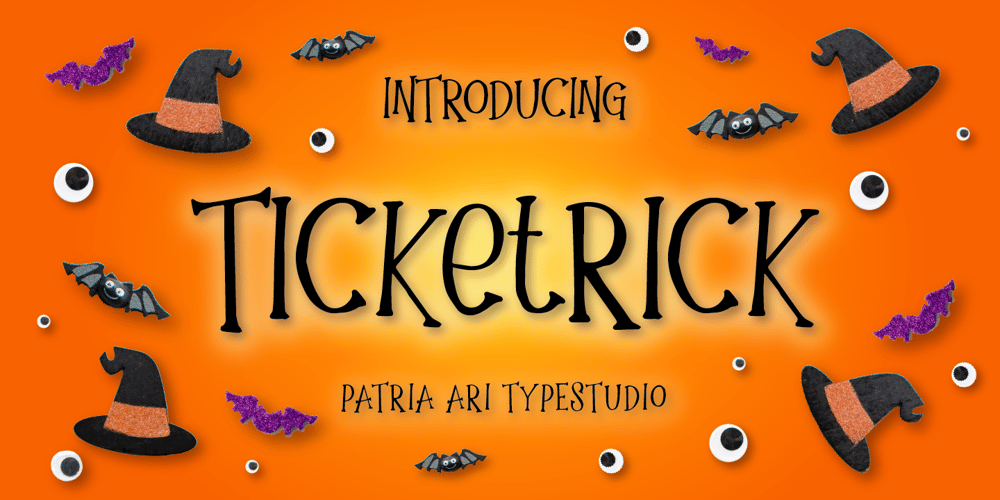
Ticketrick Font Family was designed by Patria Ari Wijonarko and published by Patria Ari. Ticketrick contains 1 styles and family package options. Ticketrick is a display font with hand-drawn serifs and an unbalanced yet fun position. Crafted from hand-drawn lettering, its uppercase and lowercase height make it perfect for displays.Inspired by Halloween, Ticketrick combines serifs, hand-drawn style, and varied letter heights, making it ideal for spooky-themed products.Elevate your Halloween designs with Ticketrick, which perfect for spooky invitations, eerie banners, and chilling merchandise.